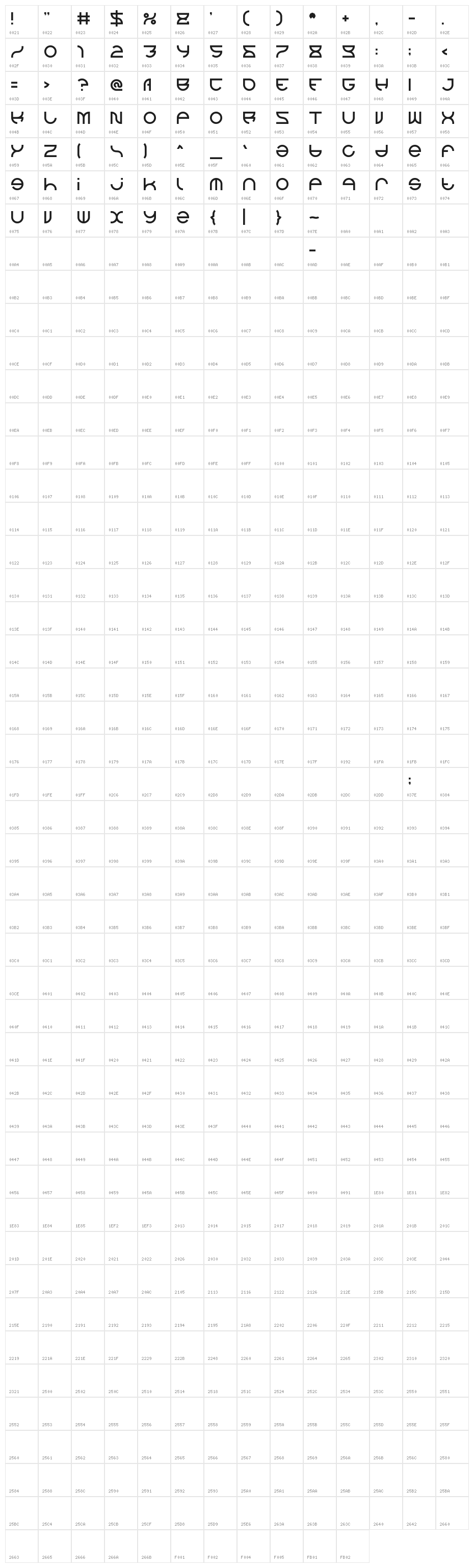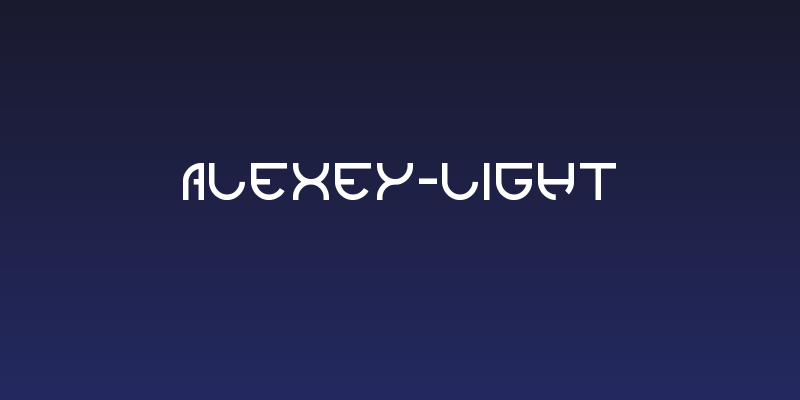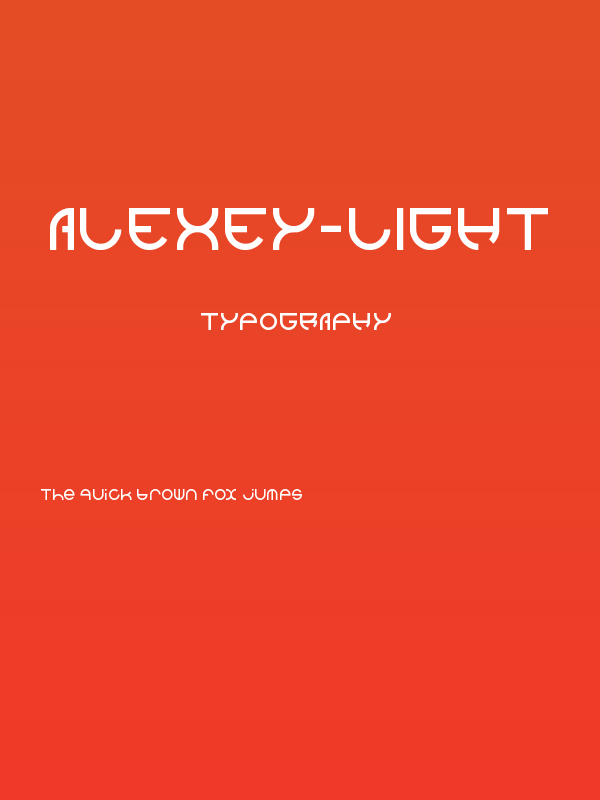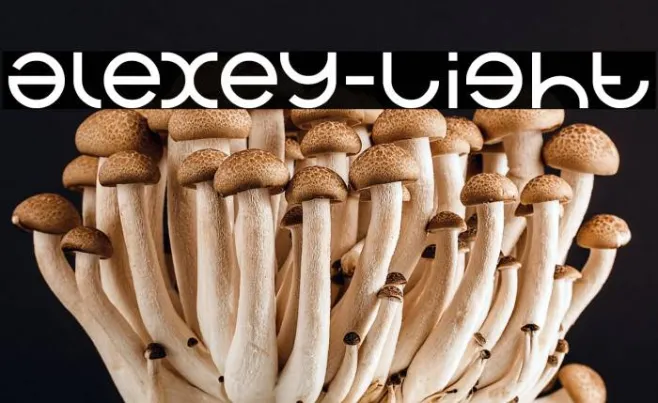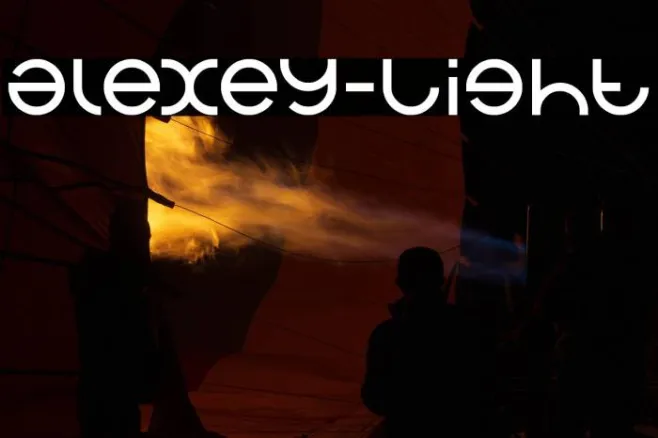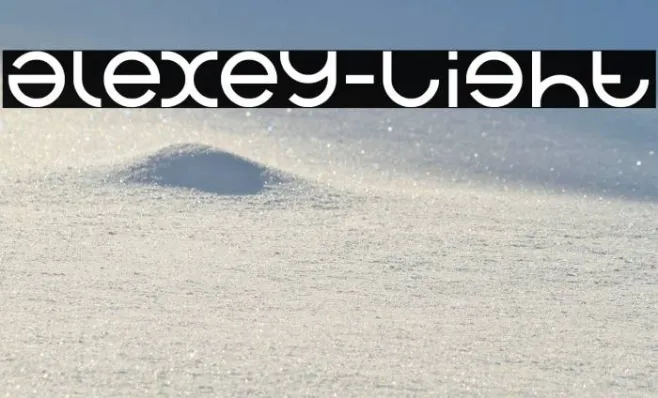
alexey-Light Font
alexey-Light Description
This font features a futuristic and geometric design, characterized by its unique and bold letterforms. The characters are constructed with a combination of straight lines and curves, creating a dynamic and modern appearance. The uppercase and lowercase letters maintain a consistent style, with some characters featuring distinctive cutouts and angles that add to the font's contemporary feel. The numerals and special characters are designed to match the overall aesthetic, ensuring a cohesive look across all glyphs. This font is well-suited for projects that require a modern and eye-catching typeface.
ALEXEY-LIGHT UPPERCASE
ALEXEY-LIGHT LOWERCASE
ALEXEY-LIGHT OTHER CHARS